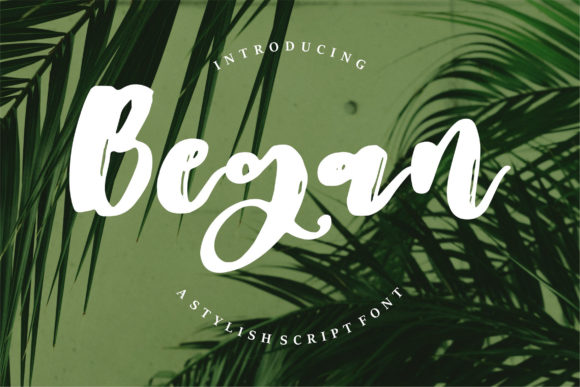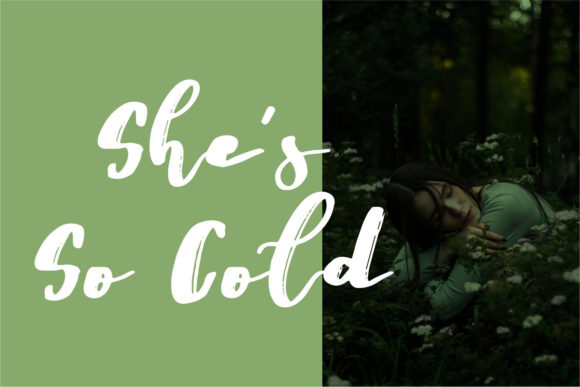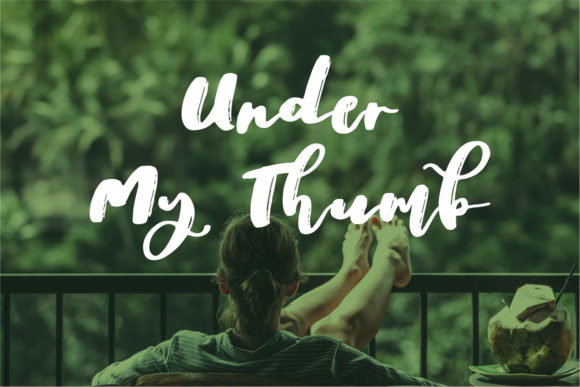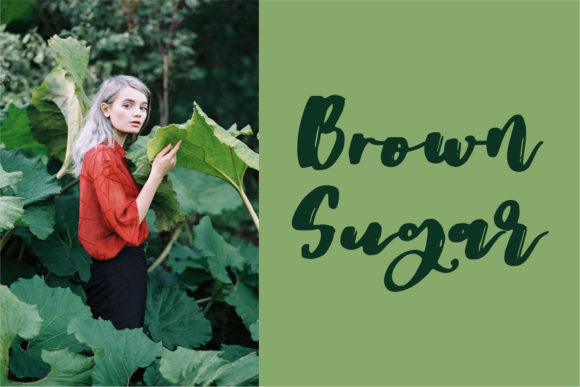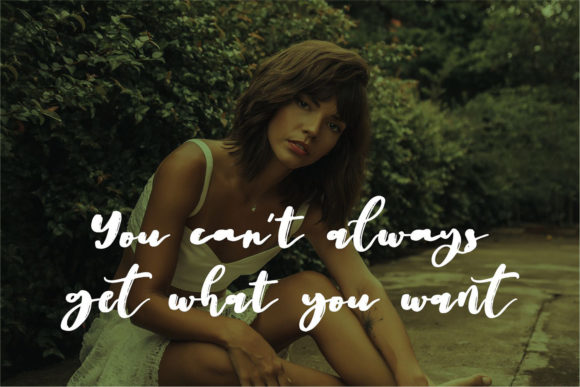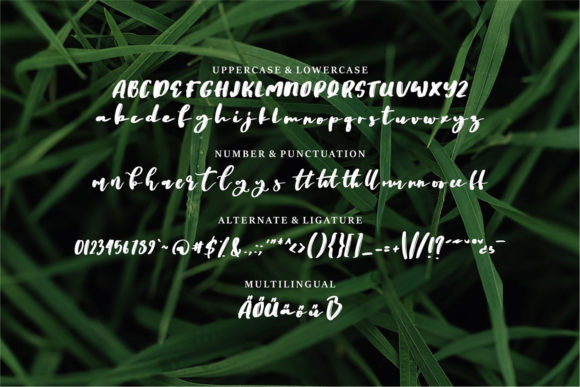
Began Font
About Began Font
Began is a sweet and delicate, paint brushed script font. It looks so beautiful on invitation like greeting cards, branding materials, business cards, quotes, posters, and more!